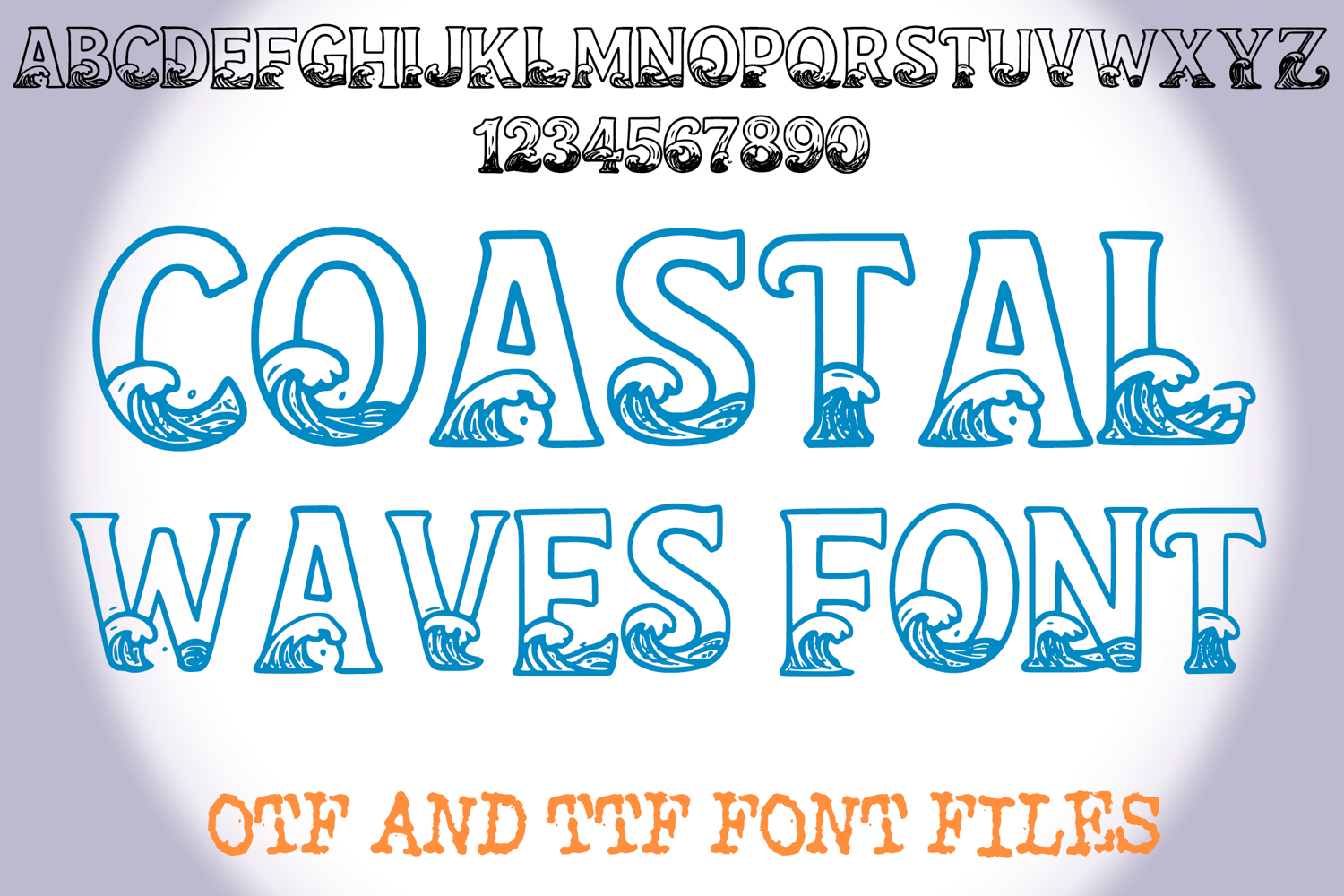
Coastal Waves Lettering ABC Text Font Alphabet OTF Type IllustrationÂ
A fun style font where you can create your own words and colour them to your vision!